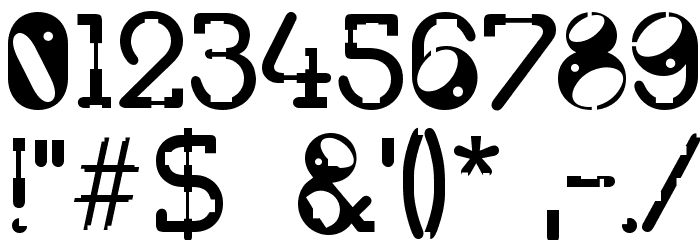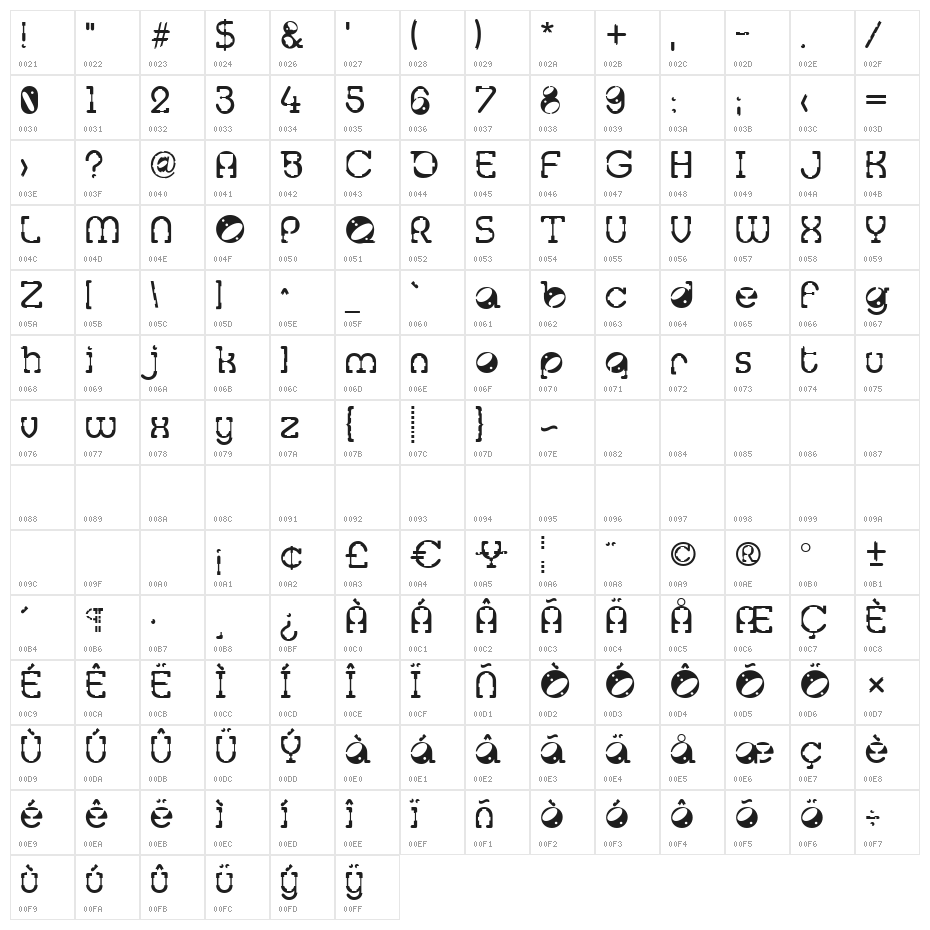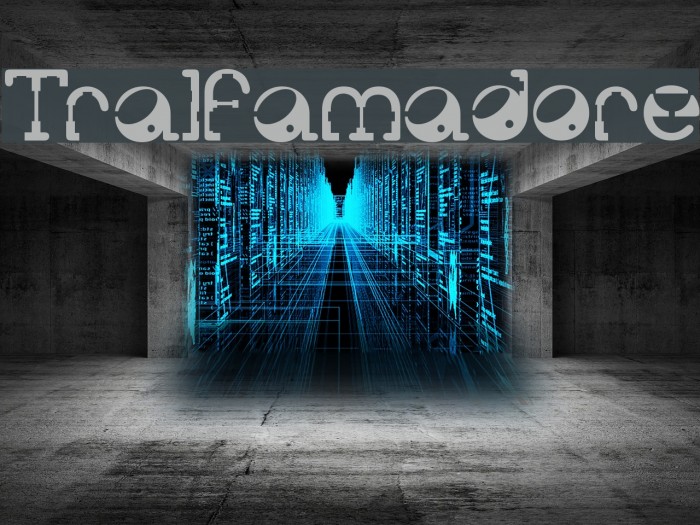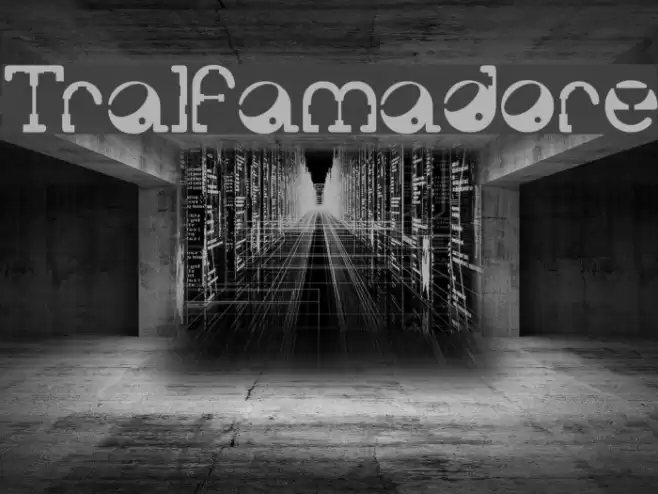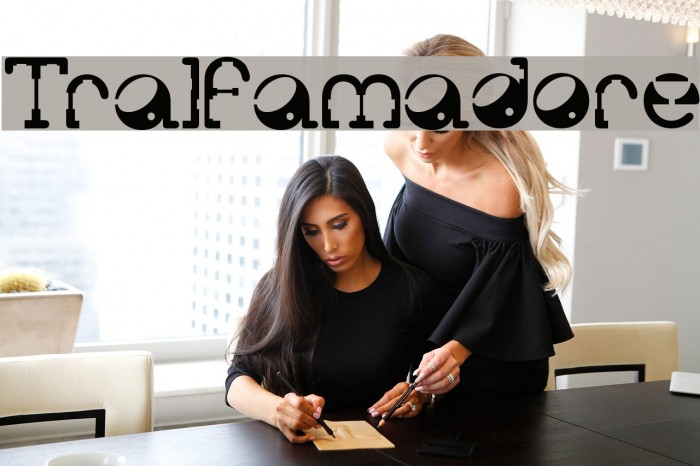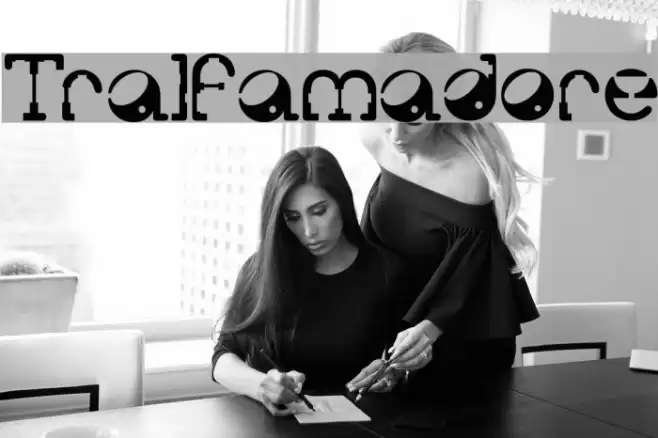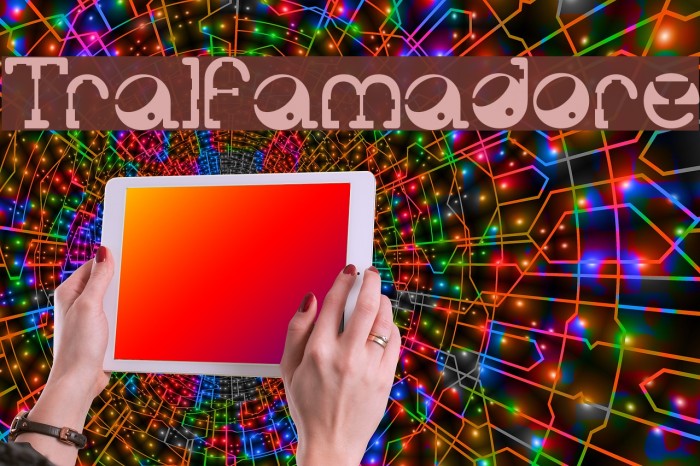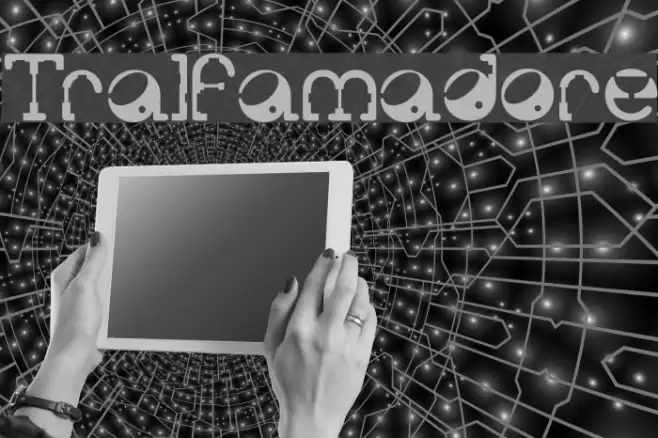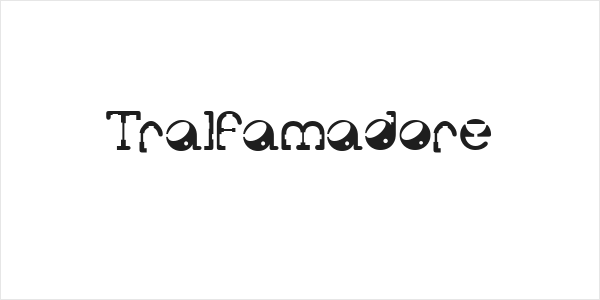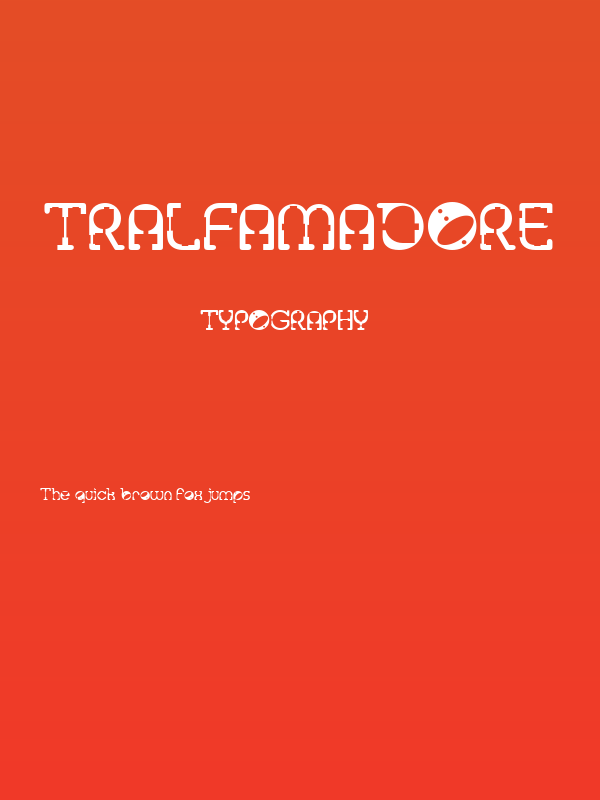
Tralfamadore Font
Tralfamadore Description
This font features a unique and playful design with a futuristic and abstract aesthetic. The characters are composed of bold, geometric shapes with circular cutouts, creating a sense of movement and dynamism. The uppercase and lowercase letters maintain a consistent style, with the circular elements adding a whimsical touch. Numbers and special characters follow the same design principles, ensuring a cohesive look across all glyphs. The font's boldness and distinctive style make it stand out, while the geometric forms provide a modern and innovative feel.
| Proposed Projects | Ideal for sci-fi themed projects, modern branding, innovative product packaging, and creative posters. |